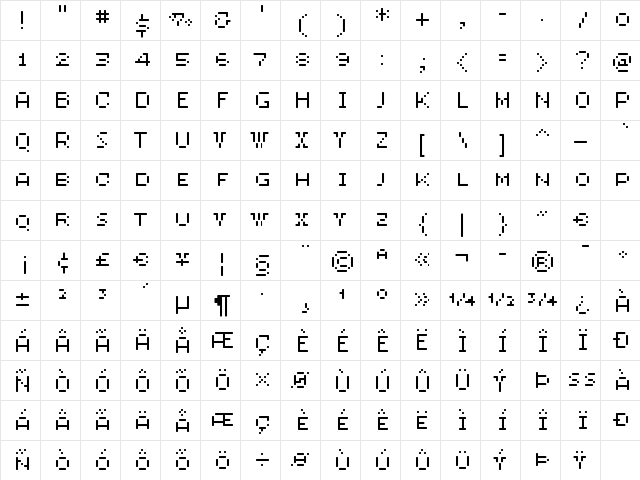
LRMinusNine WideSC
| Designer | Zuzana Licko |
Design Context for LRMinusNine Typeface
LRMinusNine is a composed and adaptable typeface that performs quietly and consistently across a wide range of design contexts.